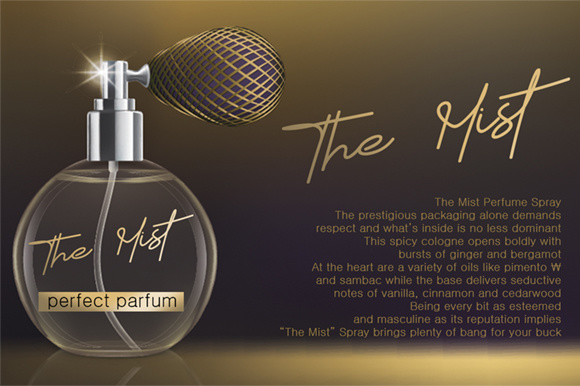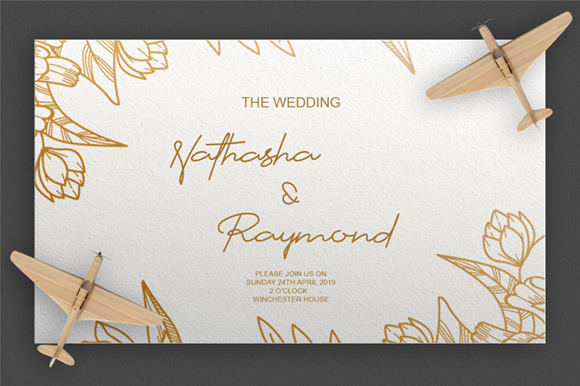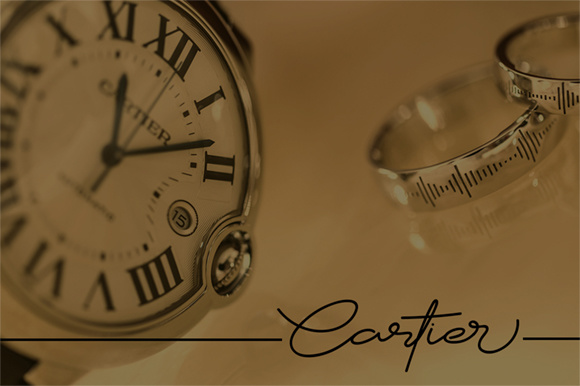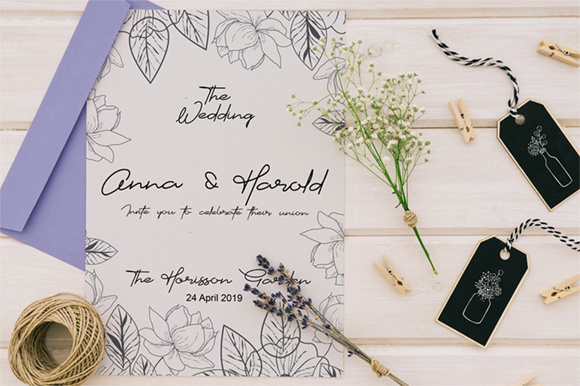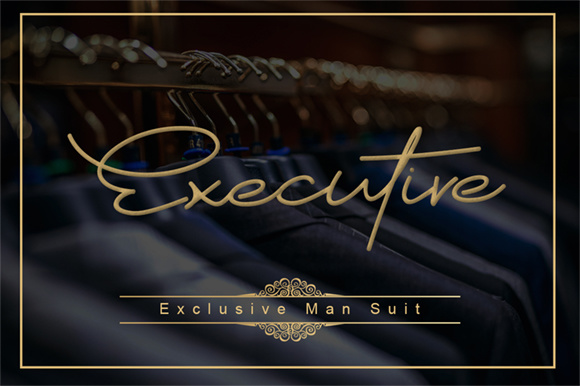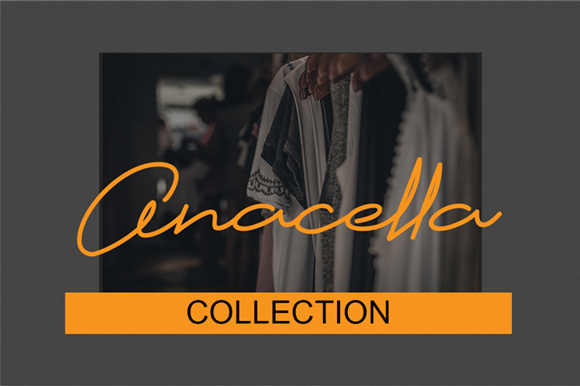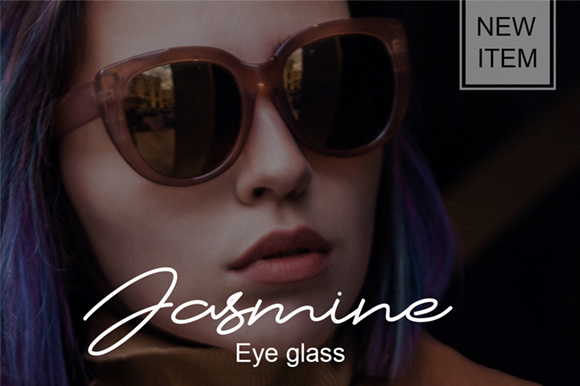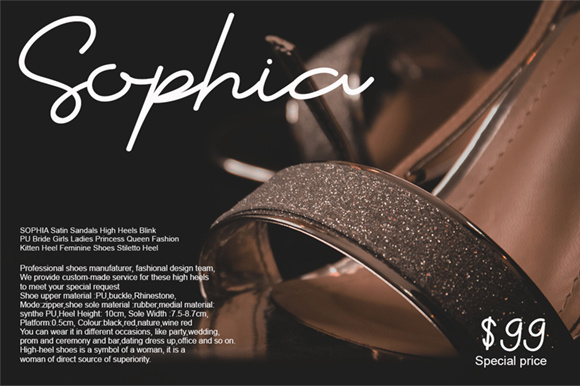
Cartier Font
About Cartier Font
The Cartier is a modern hand lettering script. It’s allowing you to create beautiful hand-made typography in an instant.